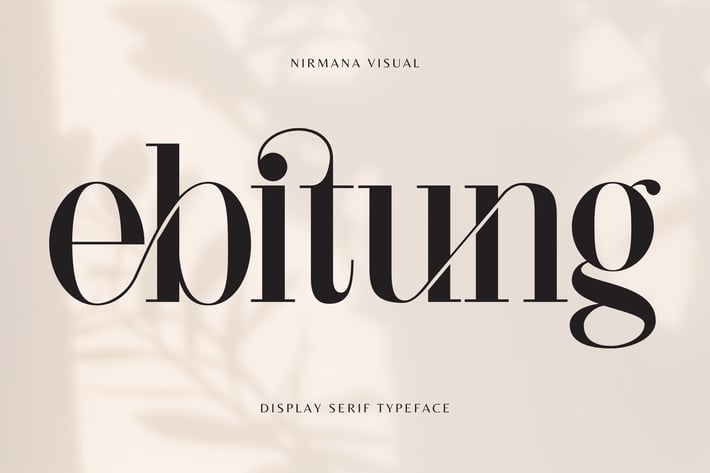
Ebitung - Modern Branding Logo Font
Ebitung - Logo Font offers beautiful typographic harmony for a diversity of design projects, including logos & branding, social media posts, advertisements & product designs.